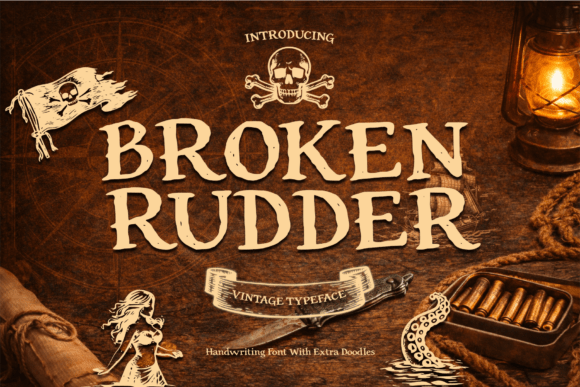
Sailing Back in Time with Broken Rudder: A Vintage Display Font
I’ll never forget the design project that led me to discover Broken Rudder. I was working on a branding campaign for a sailing company, and I was struggling to find the perfect font that captured the essence of the sea. The client wanted something that exuded adventure, nostalgia, and a touch of pirate charm. After hours of scouring font libraries, I stumbled upon Broken Rudder, and it was love at first sight! 🚣‍♀️
This hand-sculpted vintage display font is teeming with nautical charisma and unmistakable pirate charm. Influenced by seafaring adventures and historic maritime expeditions, its letterforms present bold, unstructured, and organically inspired designs. Broken Rudder delivers the signature appeal of vintage wood-carved signage and time-honored typographical techniques reflecting the intrigue of archaic printed works.
An Honest Review of Broken Rudder
• ✨ Unique, hand-sculpted design that adds a touch of rustic charm to any project
• ✅ Bold and eye-catching letterforms that command attention
• 🌟 Versatile font that works well for titles, headings, and display text
• 🔥 Robust retro vibe that adds a sense of adventure and nostalgia
• 🤔 Limited use for body text due to its bold and decorative nature
• ⚠️ May require some kerning adjustments for optimal spacing
Broken Rudder was inspired by the golden age of maritime exploration. The designer, a sailing enthusiast, wanted to create a font that captured the essence of vintage nautical signage and typography. With its bold, hand-sculpted letterforms and rustic charm, Broken Rudder is the perfect font for any project that needs a touch of adventure and nostalgia.
What is Broken Rudder font? Broken Rudder is a hand-sculpted vintage display font inspired by nautical charisma and pirate charm.
What is Broken Rudder best used for? Broken Rudder is best used for titles, headings, and display text in projects that require a touch of adventure and nostalgia.
Can I use Broken Rudder for body text? While Broken Rudder can be used for body text, it’s not recommended due to its bold and decorative nature.